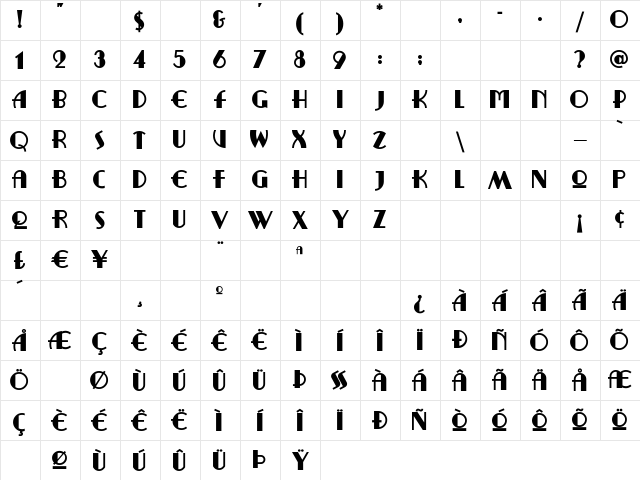
RitzyRemix Regular
Design Context for RitzyRemix
RitzyRemix is a composed and adaptable typeface that performs quietly and consistently across a wide range of design contexts.